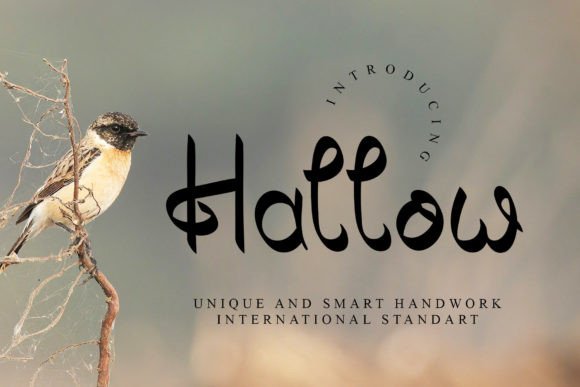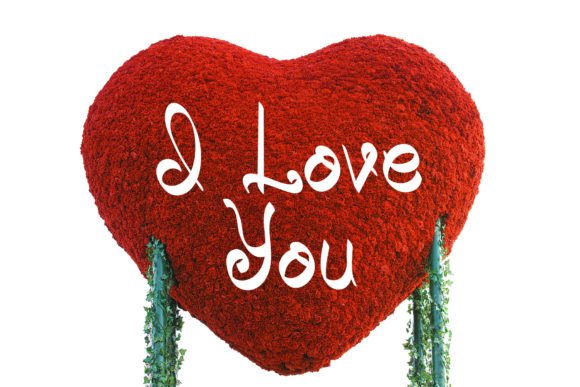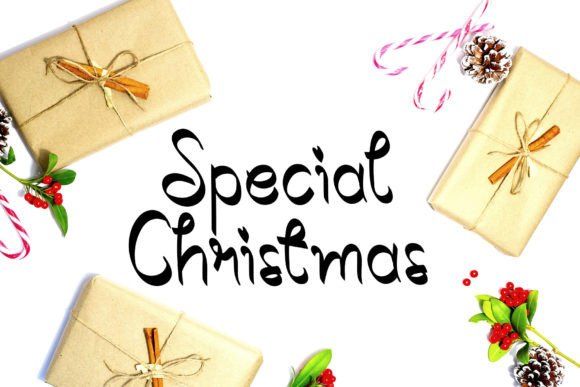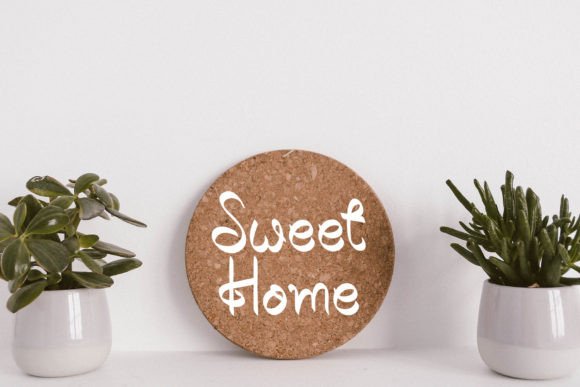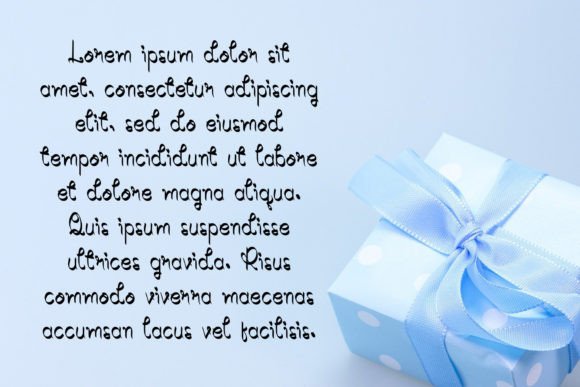
Hallow Font
About Hallow Font: Elegant and Unique Handwritten Typeface
Hallow font stands out with its unique and elegant style. It offers a natural handwritten look, making it perfect for a wide variety of creative projects. Whether you want to design wedding invitations, greeting cards, or professional business materials, Hallow font adds a refined and stylish touch that enhances your work.
Ideal for Wedding Invitations and Greeting Cards
The graceful curves and varied baseline of Hallowfont make it a superb choice for wedding invitations and greeting cards. It creates a warm, personal feeling that resonates with recipients and makes special occasions even more memorable.
Perfect for Logos and Branding
Hallow font’s sophisticated yet natural look works beautifully in logos and branding. It helps brands stand out by giving designs an authentic, handcrafted vibe that feels both fresh and timeless.
Great for Business Cards and Billboards
This font adapts well to business cards and billboard designs. Its clear yet artistic strokes ensure readability while adding a stylish flair that captures attention instantly.
Crafted for Realistic and Spectacular Designs
Created with a natural, hand-made touch, Hallowfont features a varied baseline that adds personality and movement. This quality helps your designs look more real and engaging, giving your ideas the impact they deserve.
Why Choose Hallow Font?
Choosing Hallowfont means selecting a font that combines elegance with uniqueness. Its versatility across different types of projects makes it a valuable tool for designers aiming to bring a handwritten charm and sophistication to their creations.